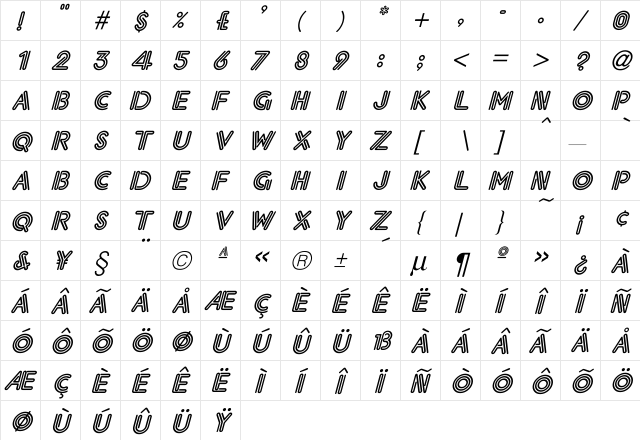
Eklektic-Normal Italic Italic
Design Context for Eklektic-Normal Italic Typeface
Eklektic-Normal Italic is a composed and adaptable typeface that performs quietly and consistently across a wide range of design contexts. The dynamic lean of this cut emphasises speed and emphasis in any layout.
Pro Tip: Try Eklektic-Normal Italic for annotation and caption copy alongside an upright companion — the contrast in angle creates a dynamic but ordered typographic system.